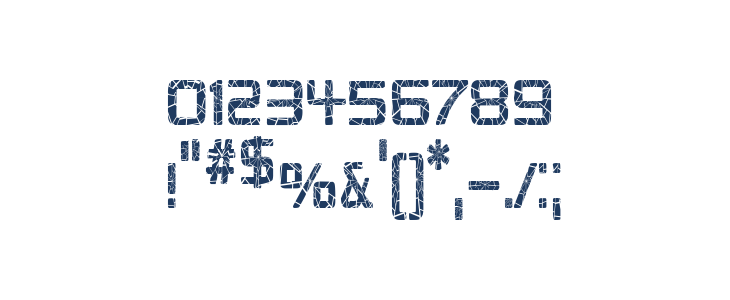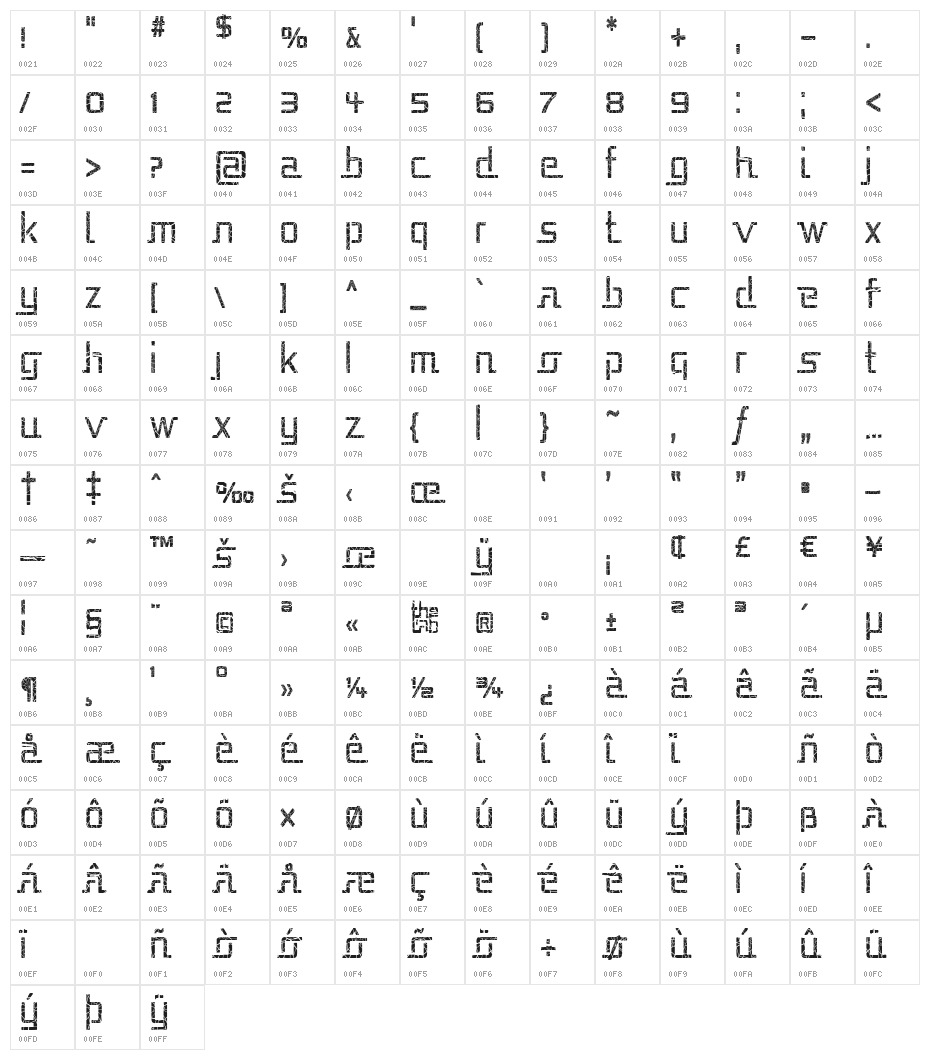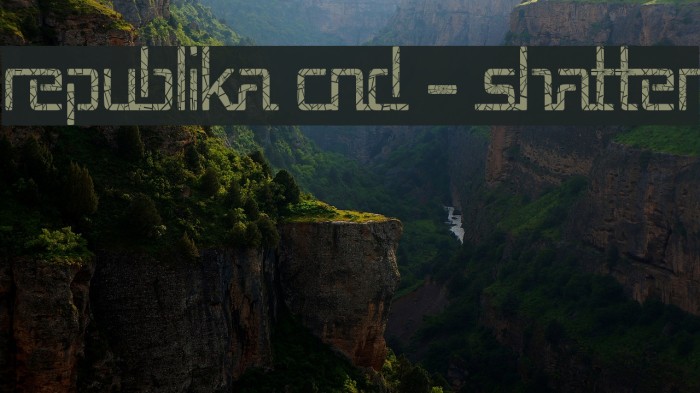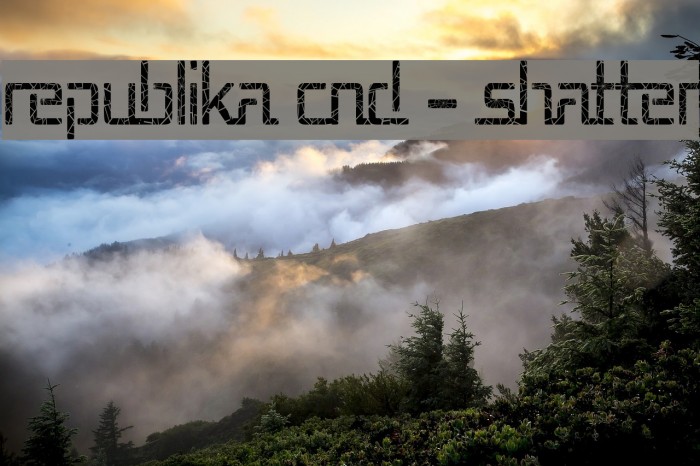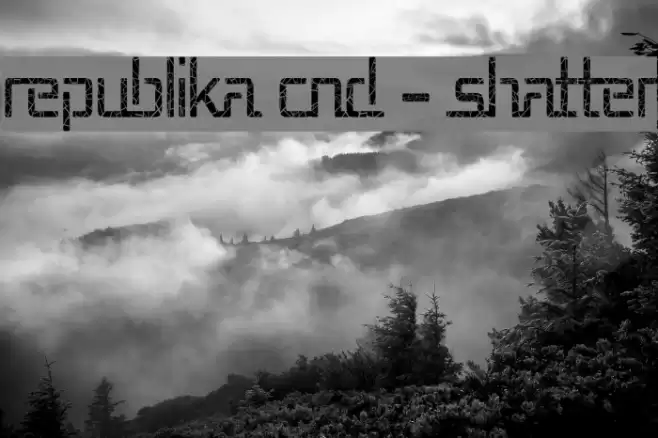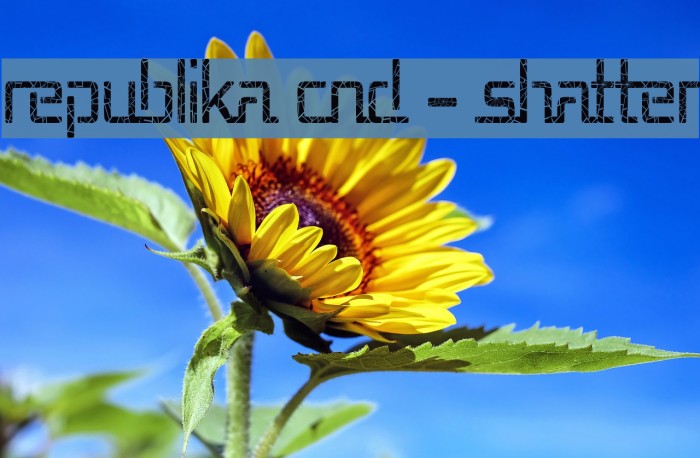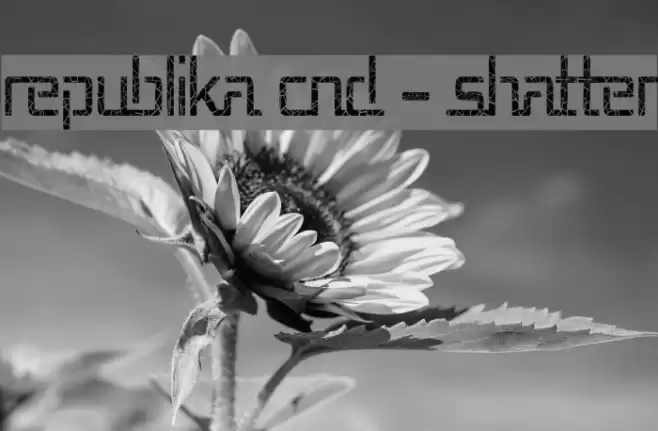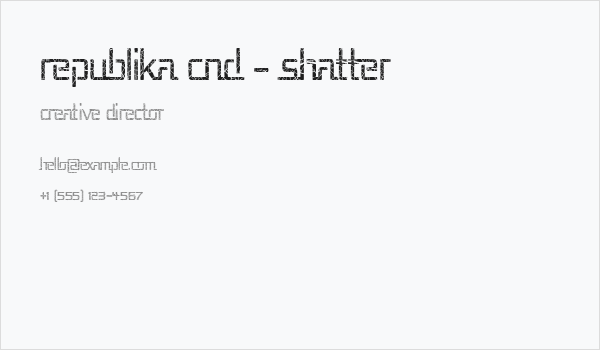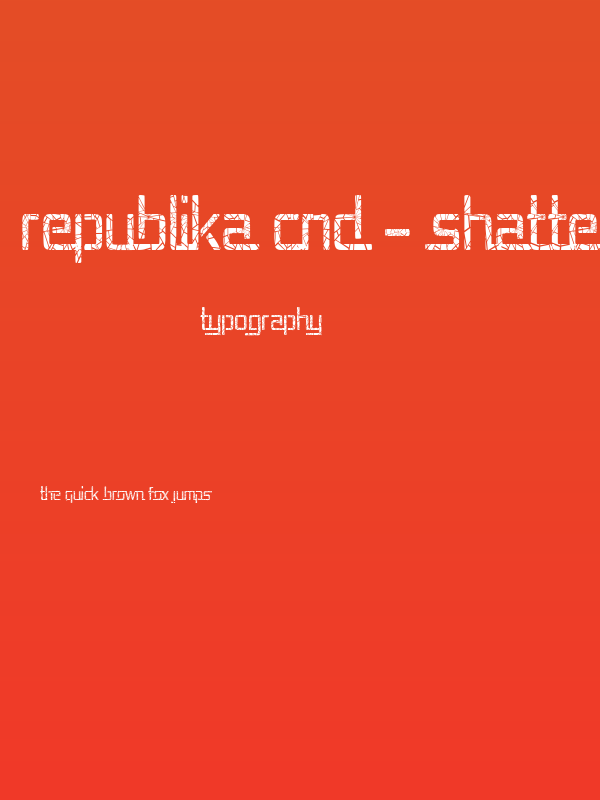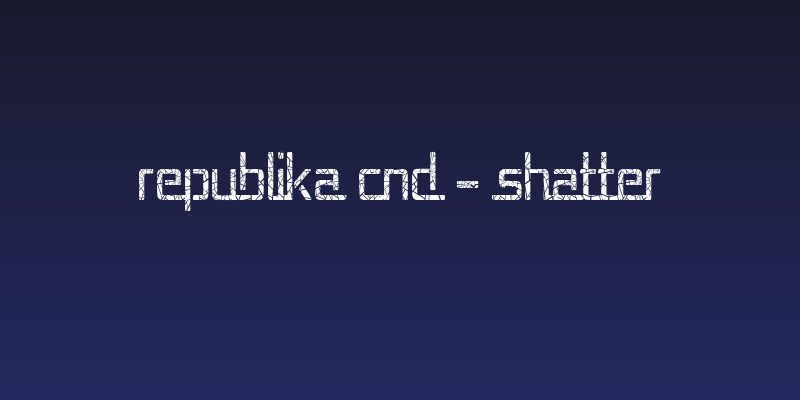
Republika Cnd - Shatter Font
Republika Cnd - Shatter Description
This font features a unique shattered glass effect, creating a dynamic and edgy appearance. The characters are bold and geometric, with sharp angles and a fragmented texture that gives the impression of broken shards. The uppercase and lowercase letters maintain a consistent style, while the numbers and special characters follow the same shattered theme. This font is highly decorative and stands out due to its distinctive design, making it suitable for projects that require a bold and unconventional look.
Overall StyleModern, Decorative
Proposed ProjectsIdeal for album covers, posters, video game titles, and any design that requires a striking and unconventional aesthetic.